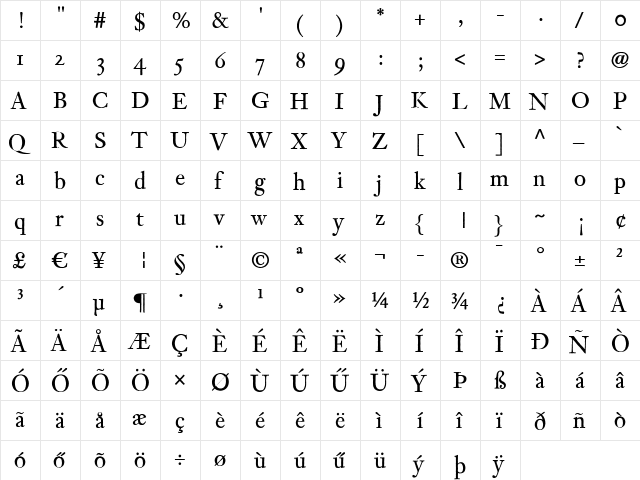
Archetype Medium Font Preview
Archetype Medium
Archetype Medium Font Details
Design Context for Archetype Typeface
Archetype takes a measured approach to typography — its balanced proportions and neutral character make it a reliable workhorse for both digital and print work.